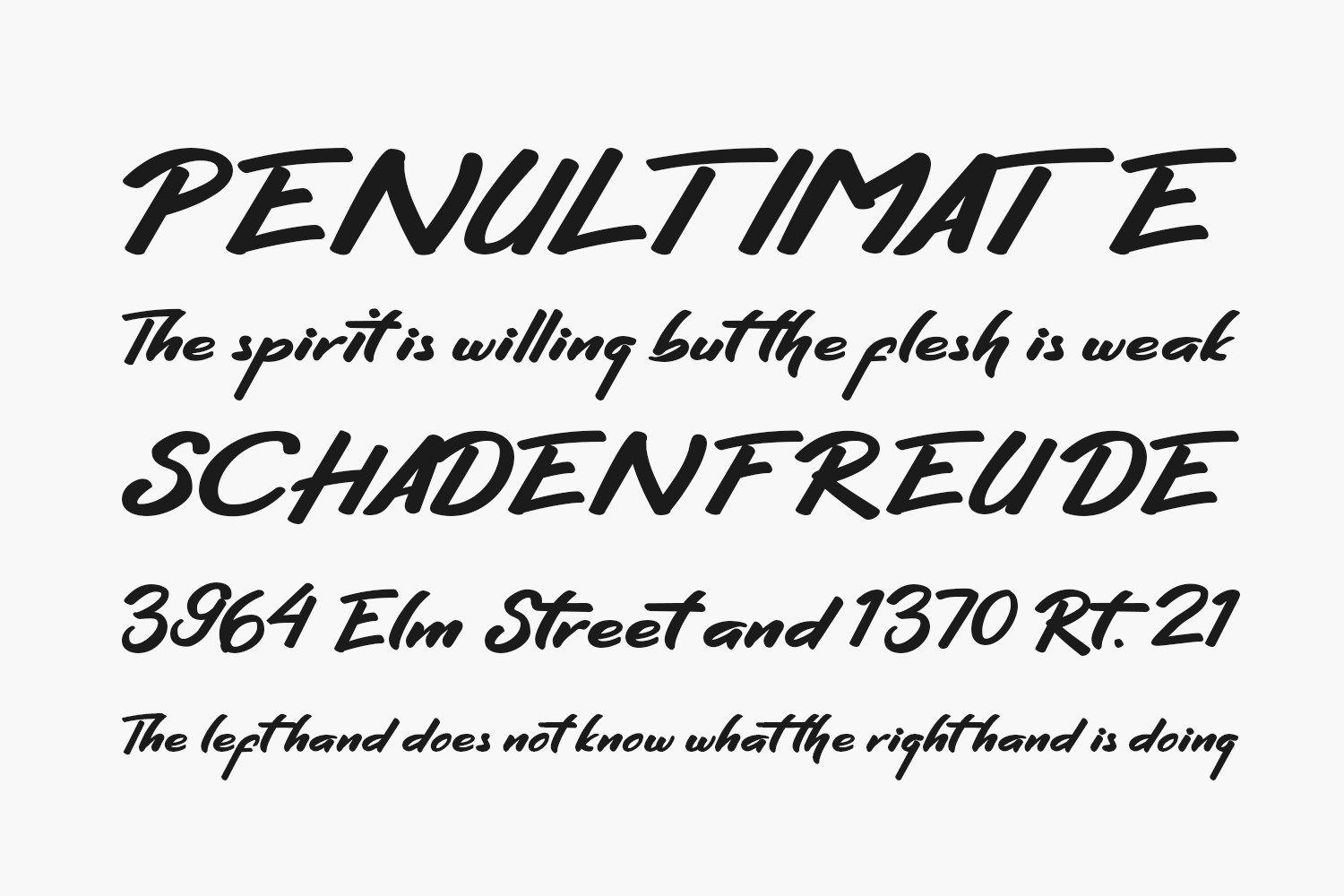
Hello Zone Free Font is a bold handwritten font. This typeset is perfect for brand logos, invitations, greeting cards, or even any kind of project. With multilingual features and style variations, this typeface would further enhance the aesthetical aspect of your work. Hello Zone Free Font was designed by Display Studio and is free for personal use only. Please purchase the full version for commercial use.